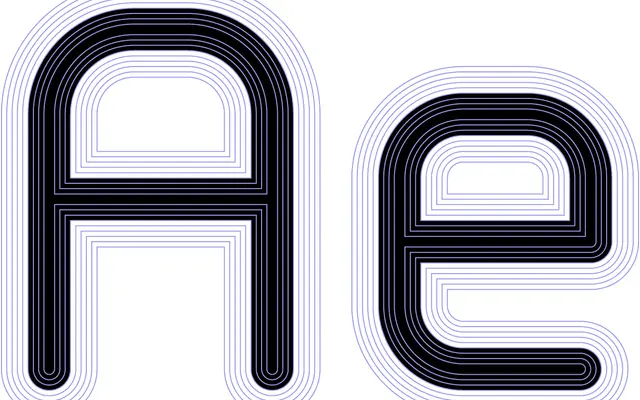
Nine Metric
A geometric type system built on a strict 9-unit grid, available in nine weights with a matching monospaced counterpart.
Nine Metric is part of MuirMcNeil's Nine system, constructed from vertical, horizontal and 45-degree oblique segments on the same 36-unit grid that underlies their ThreeSix system. Nine weights run from 018 Ultra Light to 162 Extra Black, with stroke increments added symmetrically on a central axis so that width, cap-height, x-height and spacing all modulate together across the range. Because contours and side-bearings map onto each other precisely, weights can be layered in exact registration or offset, opening spatial and time-based design possibilities beyond ordinary type use.
Nine Metric is constructed entirely from vertical, horizontal and 45-degree oblique segments terminated by circular arcs on a strict 36-unit grid subdivided into 9 units, placing it firmly in the geometric sans tradition.